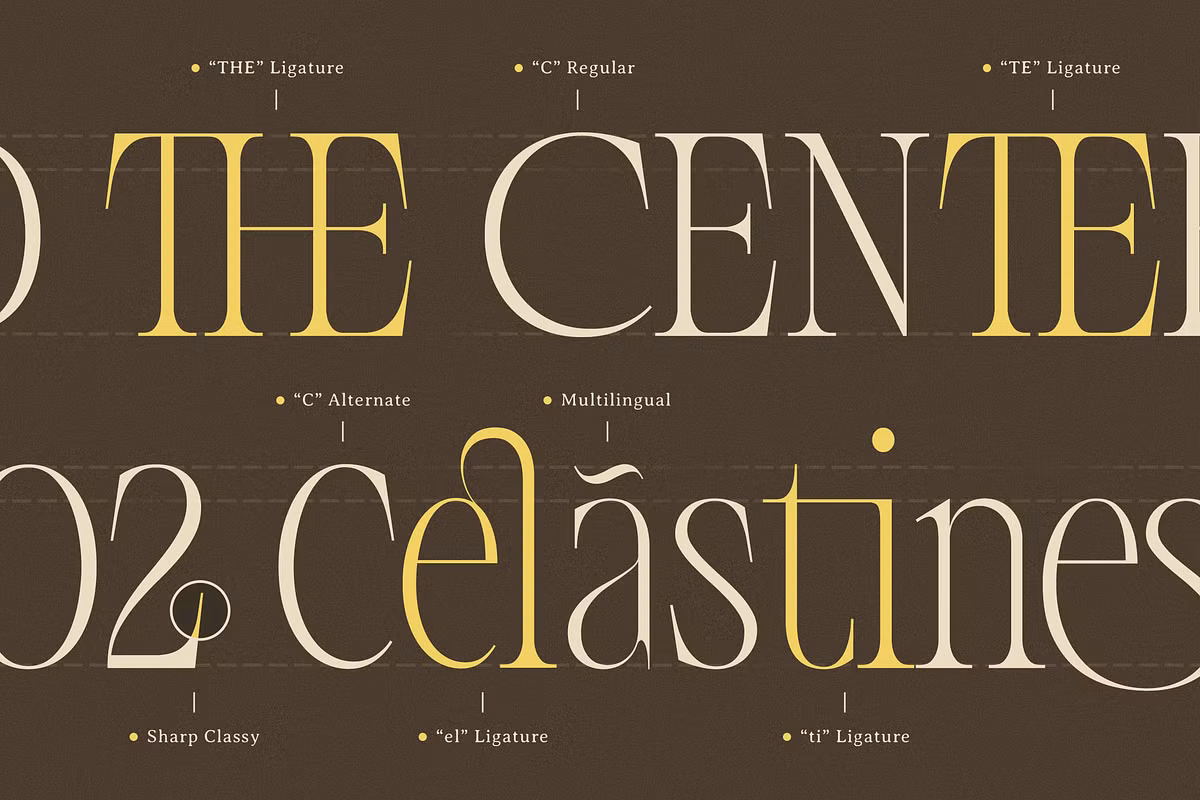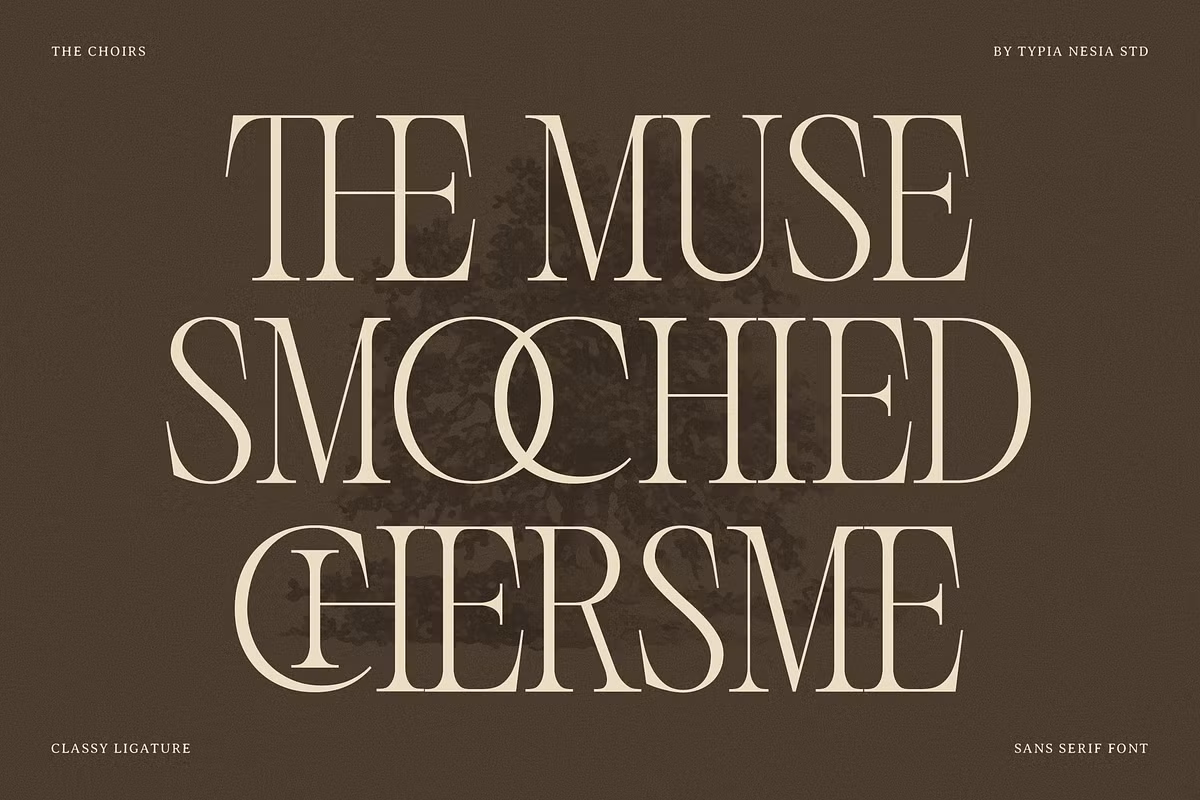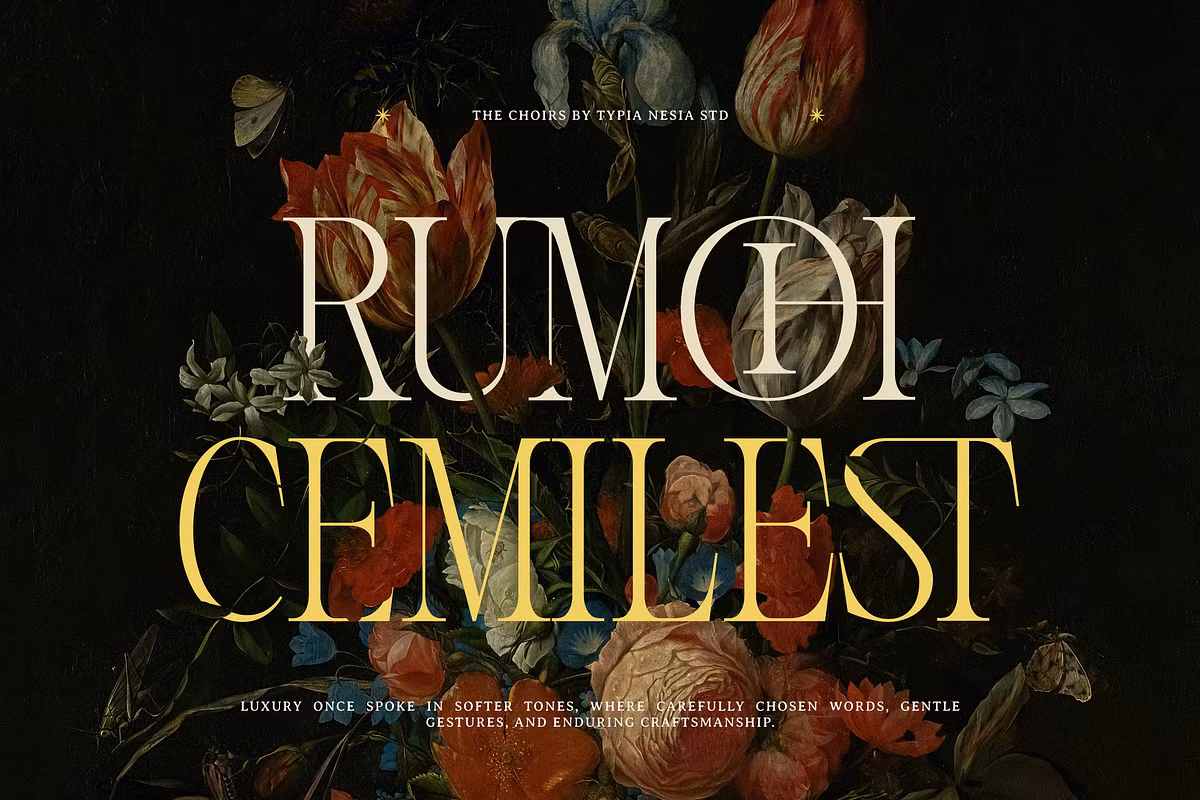
The Choirs: Luxury Elegant Serif Font for Timeless Design
Introducing The Choirs is a beautiful, modern serif font that looks really elegant and luxurious. It was made to be a fancy, connected serif font, and it combines modern style with a touch of fantasy, making it perfect for designers who want to create stunning and sophisticated work. The font has lovely, curved lines and intricate details where the letters connect, which makes it stand out as a typeface that doesn’t just convey messages, but also turns the design into a work of art.
This font is great for making a design look high-end and eye-catching, and its unique style will definitely make it noticeable. With its delicate features and elegant feel, The Choirs is a great choice for designers who want to add a touch of luxury and sophistication to their work.
The Choirs has a beautiful, classic look that feels modern too. Its lines are smooth and flowing, which gives it a refined and feminine touch. What makes this serif font special is how the letters connect to each other, making it easy to read and adding an artistic feel.
The people who designed The Choirs paid close attention to every detail, which makes it more than just a font – it’s a way to make your layout look amazing and tell a story. The way the letters flow into each other creates a sense of elegance and sophistication, making it perfect for designs that need a touch of luxury.
The Aesthetic Appeal of Ligatures
The Choirs has some really beautiful features, like its ligatures, which are special combinations of letters that are designed to work together. These ligatures don’t just make the font look nicer, they also give it a sense of elegance that’s perfect for high-end design projects.
When you use ligatures in typography, it can make things feel more exclusive and luxurious, which is why The Choirs is a great choice for branding and packaging premium products. One of the best things about The Choirs is that it can fit in with lots of different design styles, but it still manages to keep its own unique personality. This makes it really versatile and useful for designers who want to create something special.
Character Sets and Versatility
The Choirs font is really versatile and can be used in many different ways. It has a big set of characters, which makes it work well for lots of languages and design projects. This means it’s a great choice for brands that want to reach people all around the world.
You can use it to make beautiful invitations, fancy logos, or even packaging for high-end skincare products. The font is designed to be flexible, so you can use it to create lots of different looks and feels. It’s perfect for designers who want to add a touch of elegance and sophistication to their work.
Use Cases for The Choirs
- Logo Design: The Choirs is perfect for brands that wish to convey a sense of elegance and luxury.
- Wedding Invitations: The delicate and romantic nature of The Choirs makes it ideal for wedding stationery.
- Cosmetic Branding: Complements product packaging beautifully, enhancing visual appeal.
- Fashion Editorials: Aligns perfectly with fashion photography and editorial layouts.
- Premium Product Packaging: Elevates packaging design, making products stand out.
To maximize the impact of The Choirs in your designs, consider pairing it with complementary typefaces. Here are some pairing suggestions that can enhance your design projects:
- Sans Serif Fonts: Pair with a clean sans serif font such as Montserrat or Lato.
- Script Fonts: Combine with a delicate script font like Great Vibes or Allura.
- Using simple fonts like Open Sans or Raleway can create a clean and fancy look.
It’s all about making a good impression, and the right font can make all the difference.
The Choirs font is great for anyone to use, whether you’re working on a personal project or something for a client. It’s really versatile, so designers in all kinds of fields can use it. When you download The Choirs, you’re not just getting a font – you’re also getting a way to add some luxury and sophistication to your designs.
The Choirs is not just any font, it’s a way to add a touch of elegance and luxury to your designs. Its beautiful details and proportions make it a great choice for creating timeless designs that really catch your eye.
If you’re working on a logo, wedding invitations, or packaging for a high-end product, The Choirs can give your work a sophisticated feel. It’s all about using typography to create a beautiful visual experience. With The Choirs, you can make your designs look luxurious and inspiring.